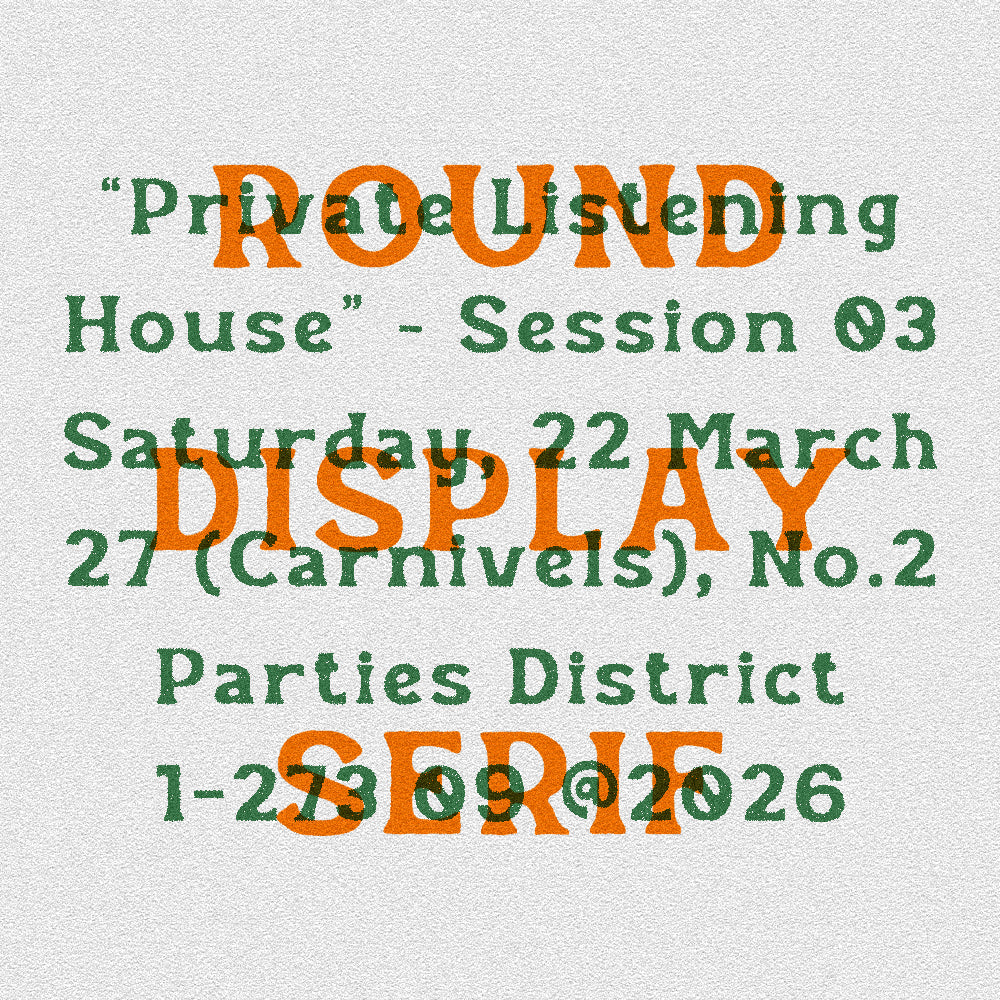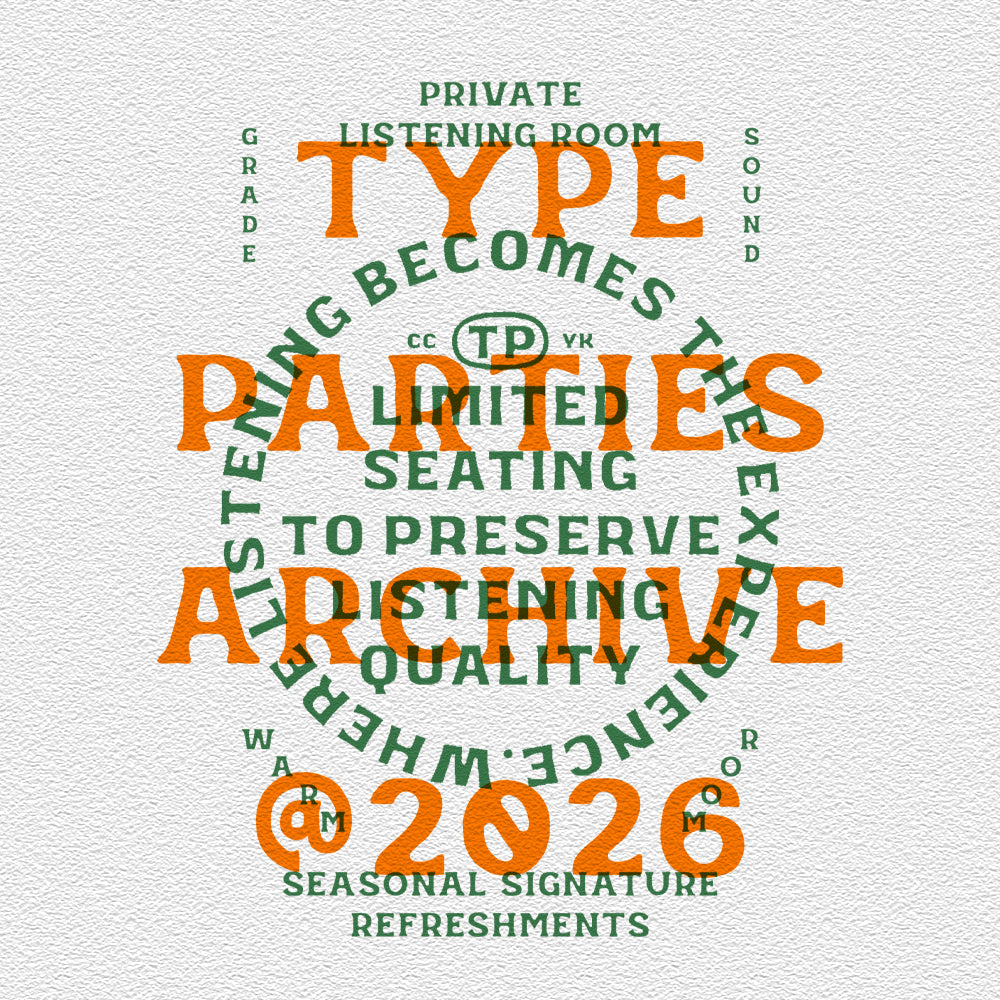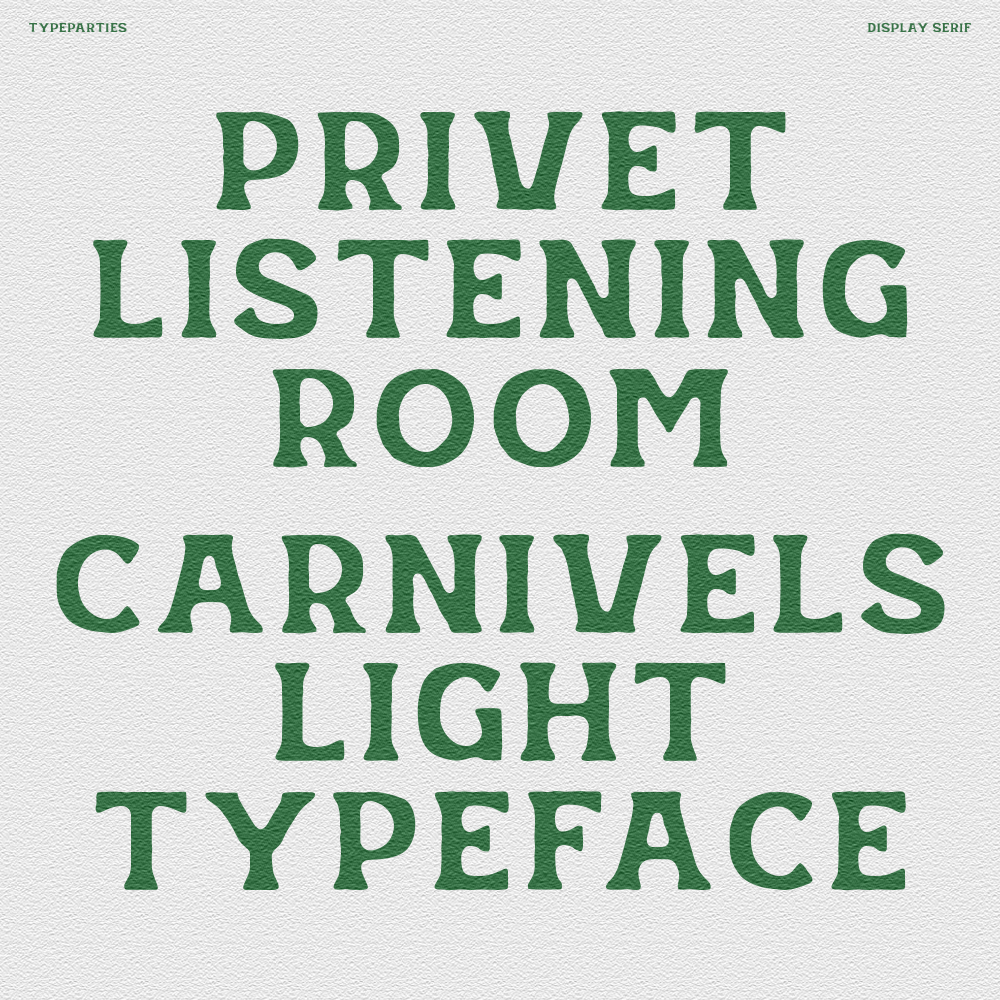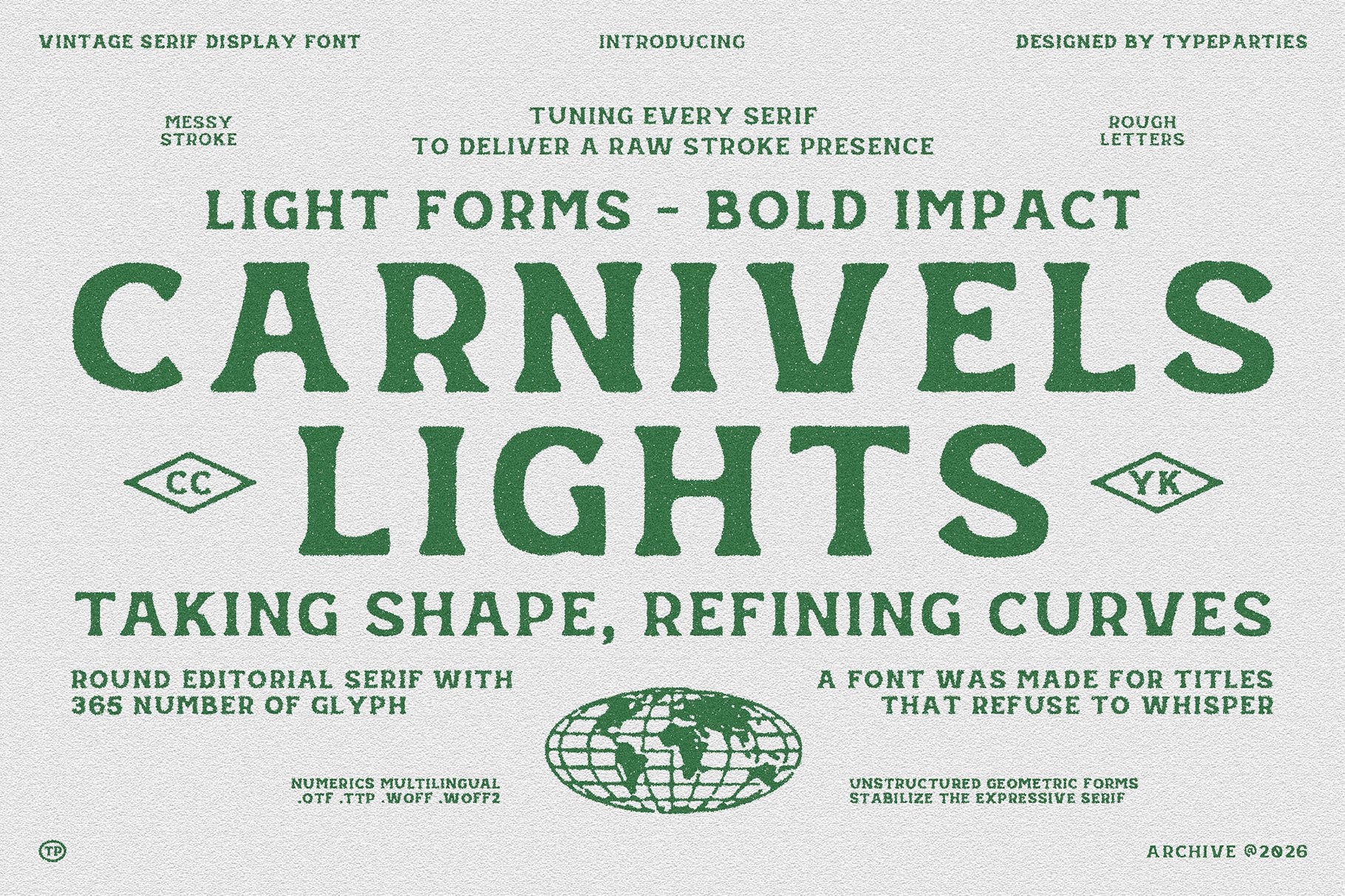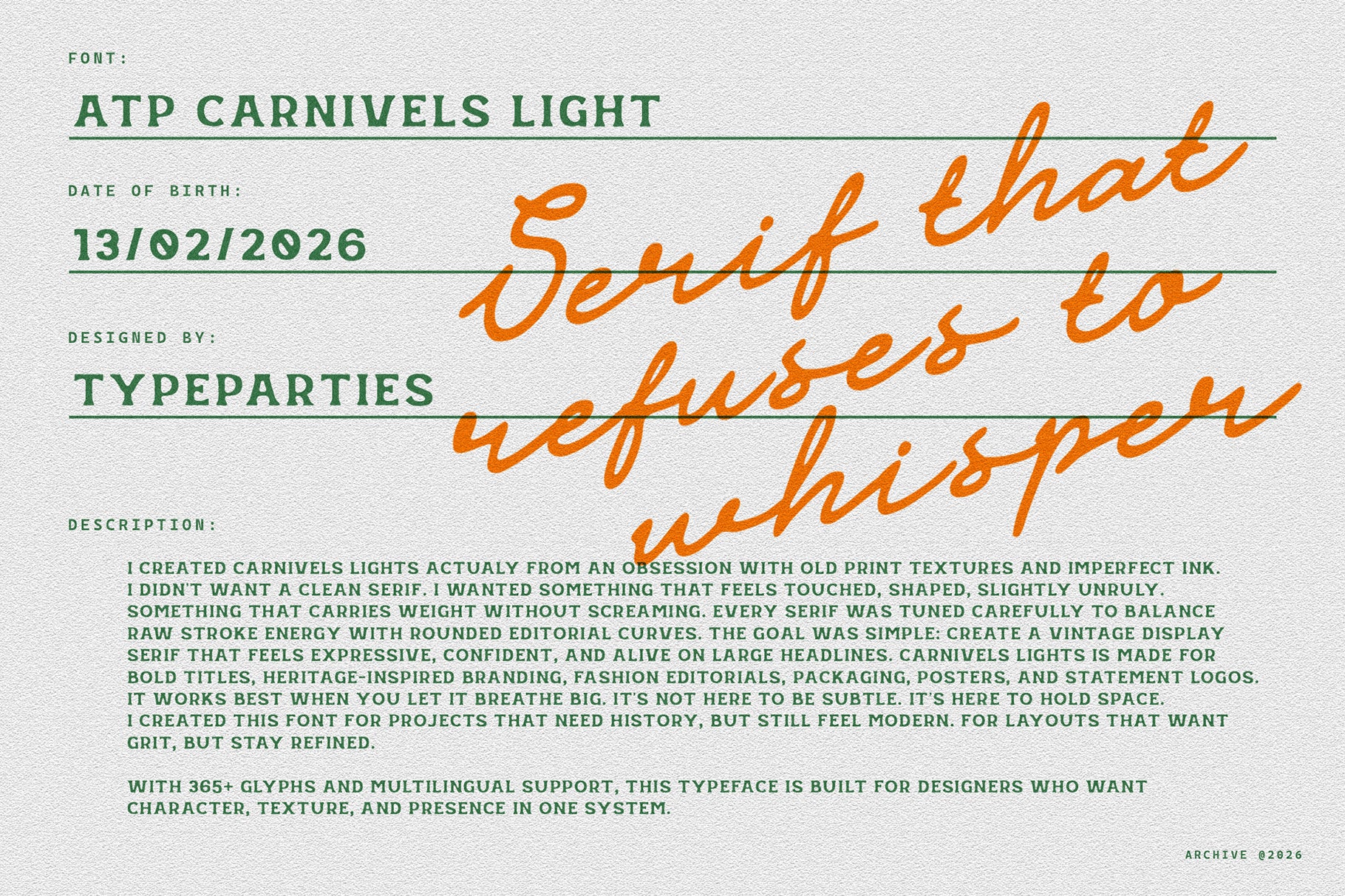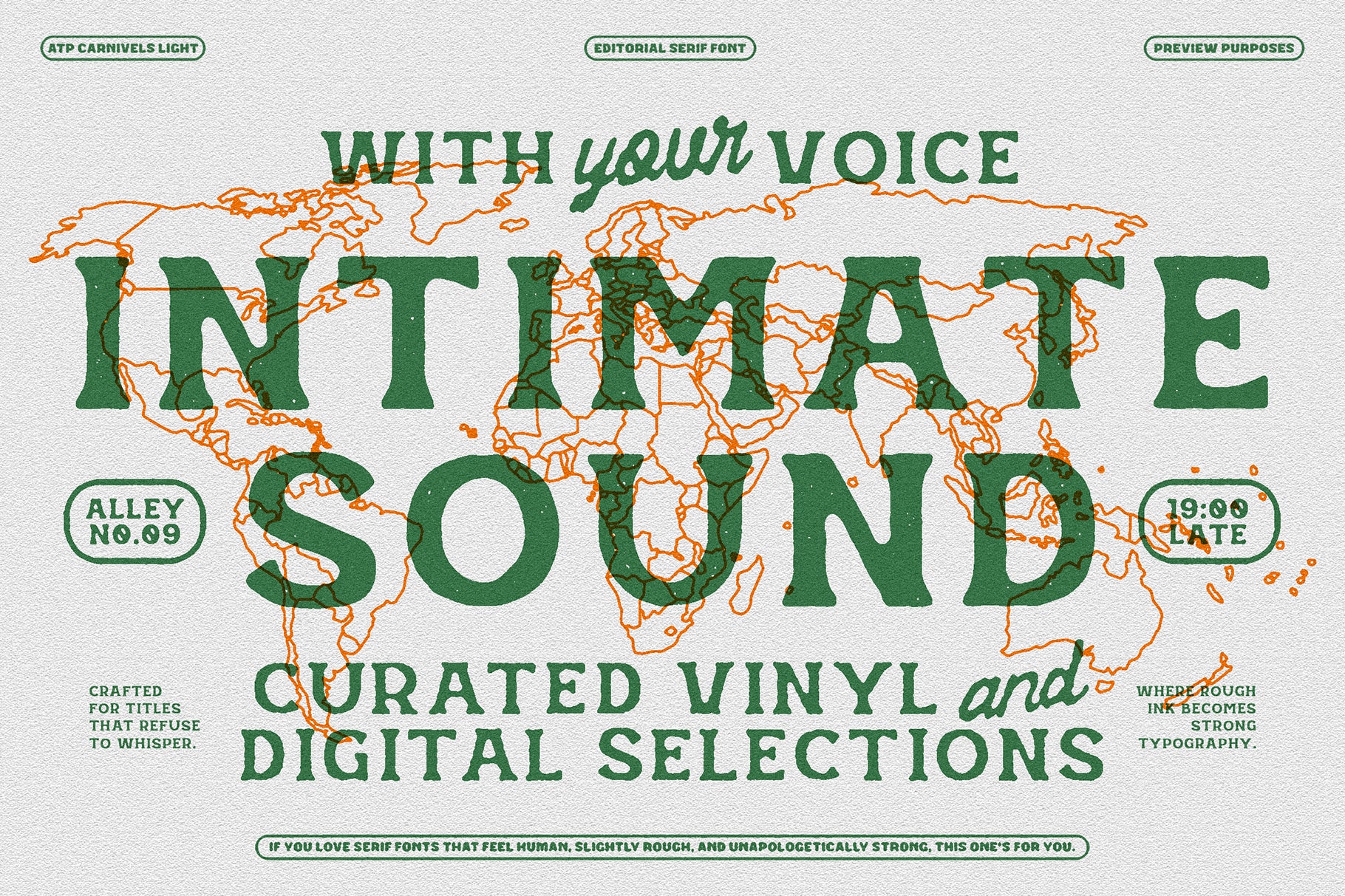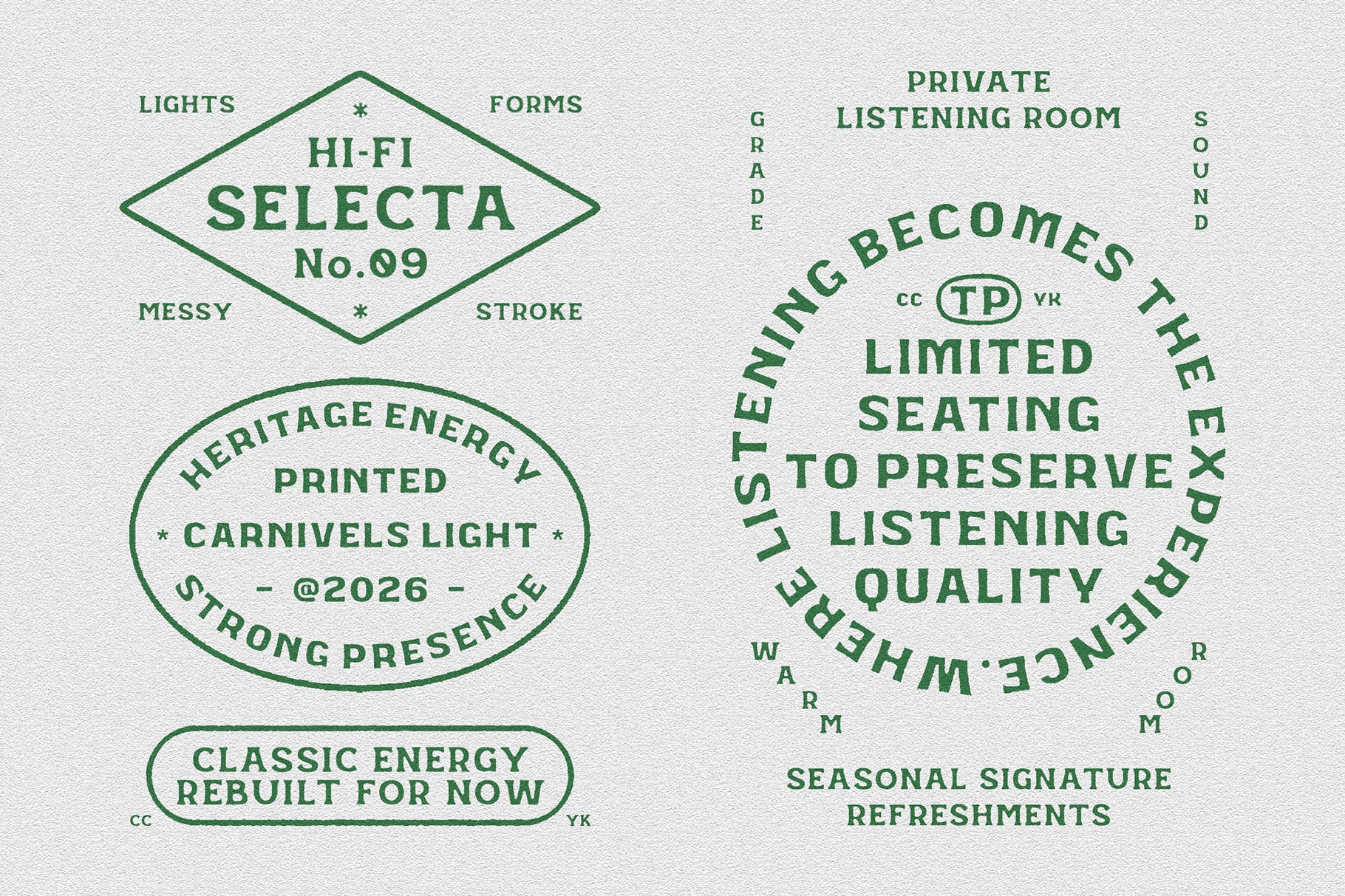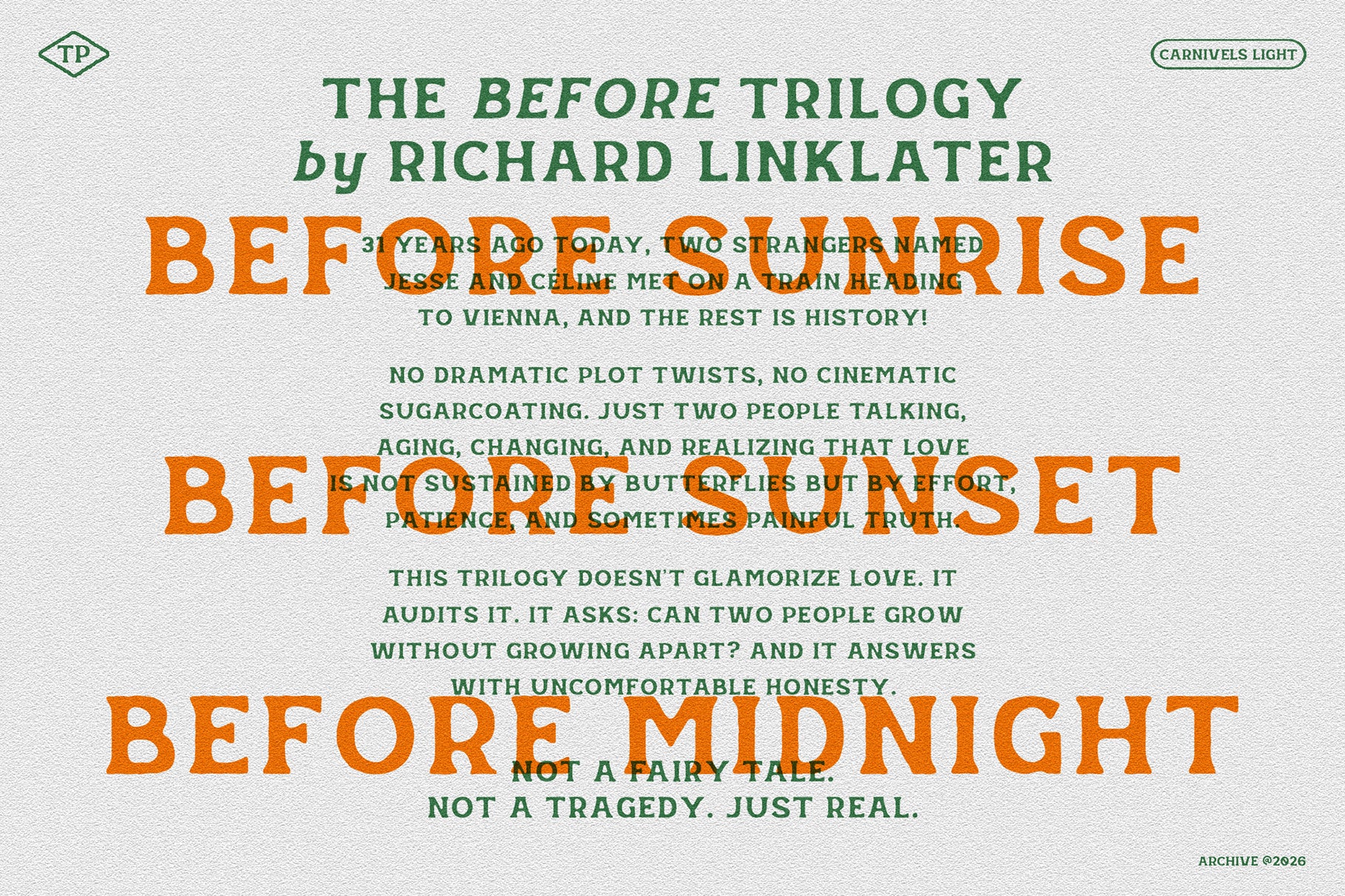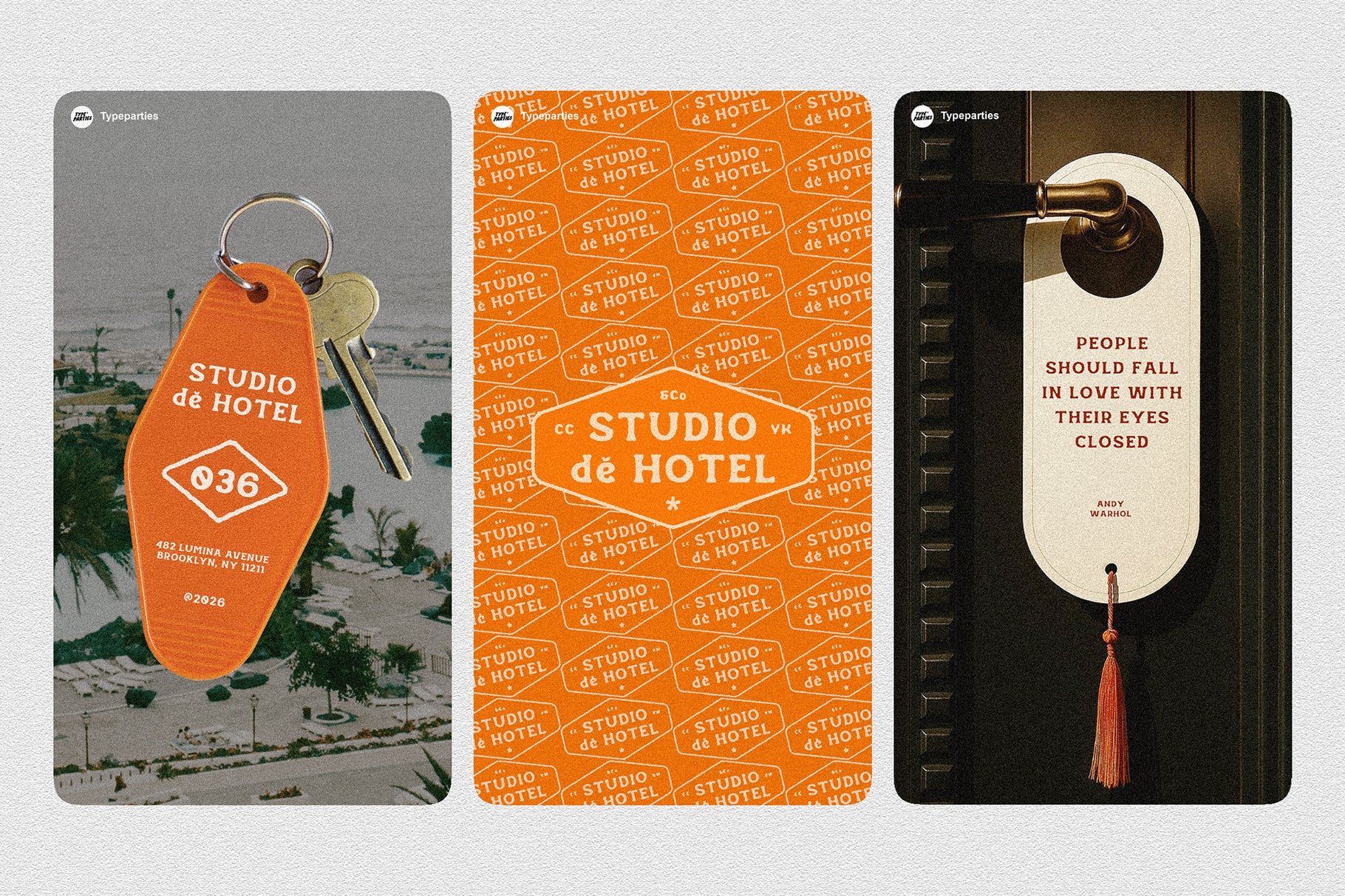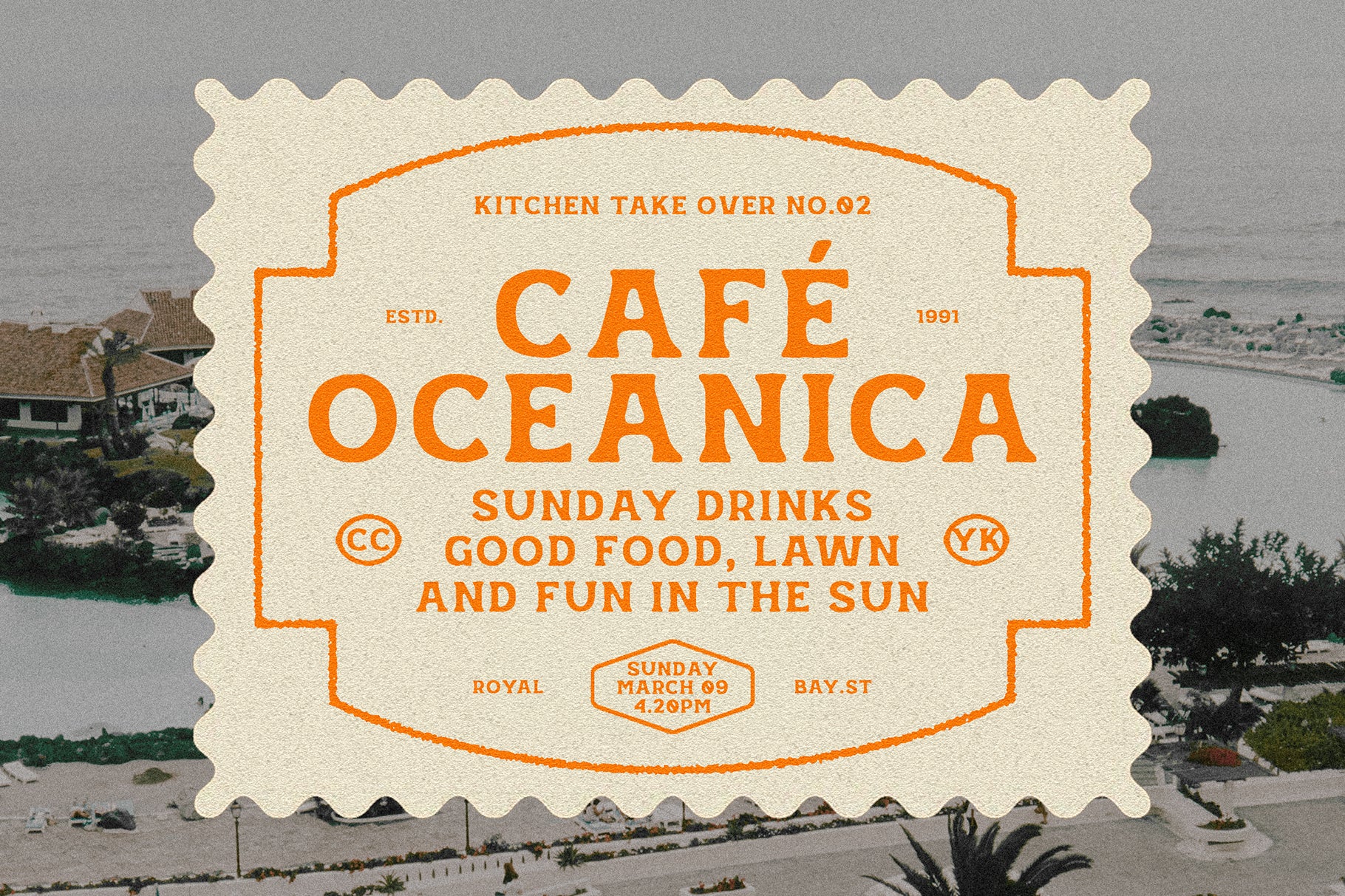
Carnivels Light – Retro Editorial Display Serif Font
Carnivels Lights -  Vintage Serif Display Font
I built Carnivels Lights from an obsession with old print textures and imperfect ink. I didn’t want a clean serif. I wanted something that feels touched, shaped, slightly unruly. Something that carries weight without screaming.
Every serif was tuned carefully to balance raw stroke energy with rounded editorial curves. The goal was simple: create a vintage display serif that feels expressive, confident, and alive on large headlines.
Carnivels Lights is made for bold titles, heritage-inspired branding, fashion editorials, packaging, posters, and statement logos. It works best when you let it breathe big. It’s not here to be subtle. It’s here to hold space.
With 365+ glyphs and multilingual support, this typeface is built for designers who want character, texture, and presence in one system.
I created this font for projects that need history, but still feel modern. For layouts that want grit, but stay refined.
If you love serif fonts that feel human, slightly rough, and unapologetically strong, this one’s for you.
Carnivels Light is a vintage serif display font designed with over 365 glyphs and multilingual support, featuring a unique blend of raw stroke energy and rounded editorial curves. Available in .otf and .ttf formats, it offers a textured, bold typeface suitable for various design projects.